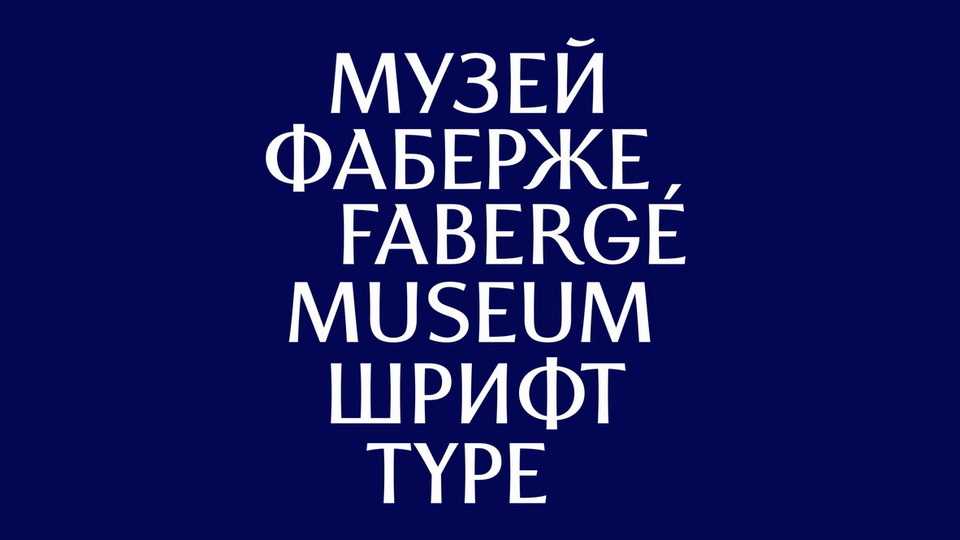
Download Faberge font, a sophisticated high contrast sans serif typeface with reverse emphasis, developed as part of the identity work for the Fabergé Museum.
Designer: Vasiliy Shishkin